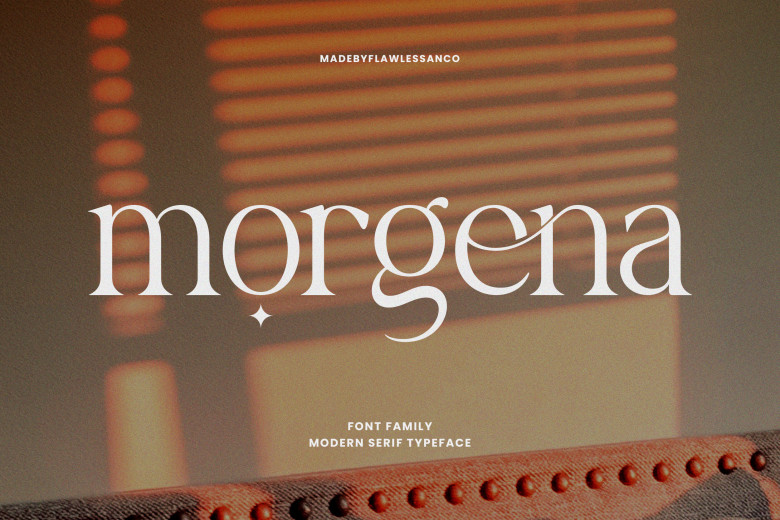
Morgena Font
Introducing “Morgena Family Font”. Encounter the multi-faceted world of typography by leafing through “Morgena” – a typeface that significantly transcends the concept of ordinary fonts. They are versatile and have Thin, Extra Light, Light, Normal, Semilight, Medium and Bold looks that let creativity ring with harmonious tone and character.
Morgena Serif Font